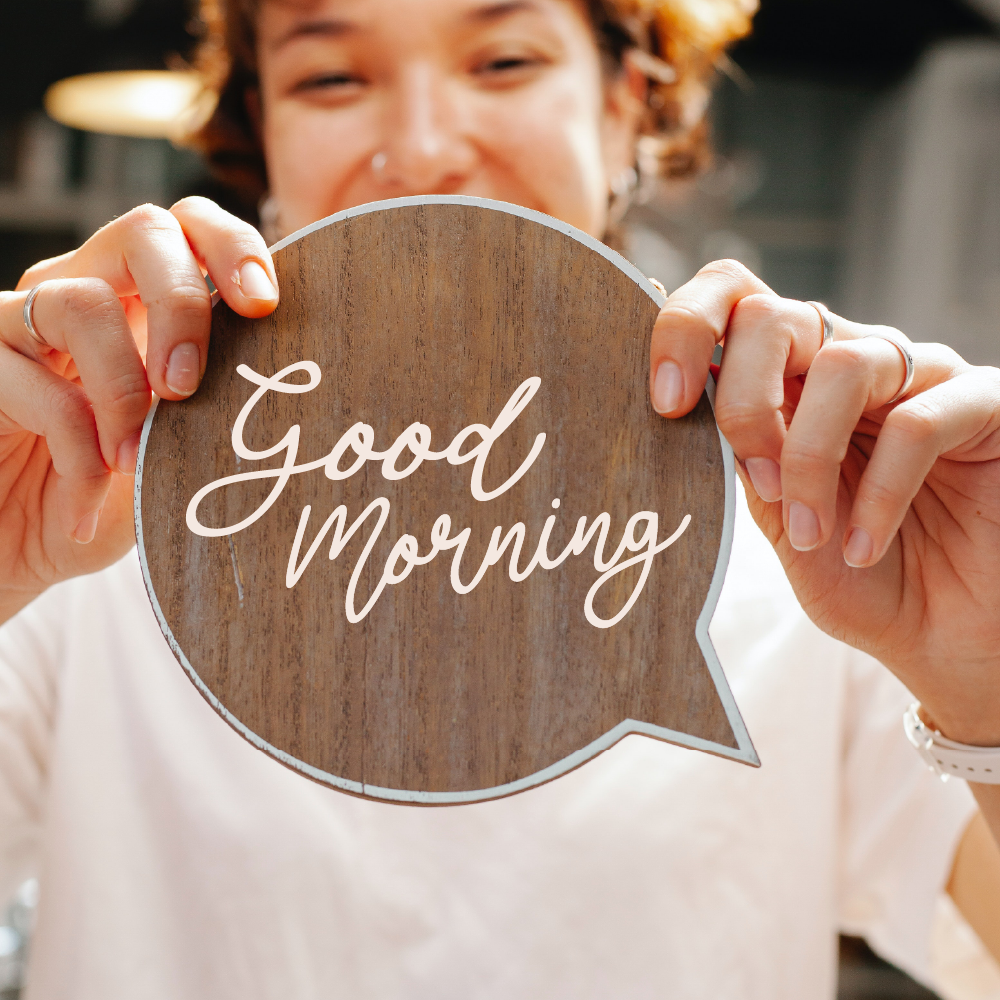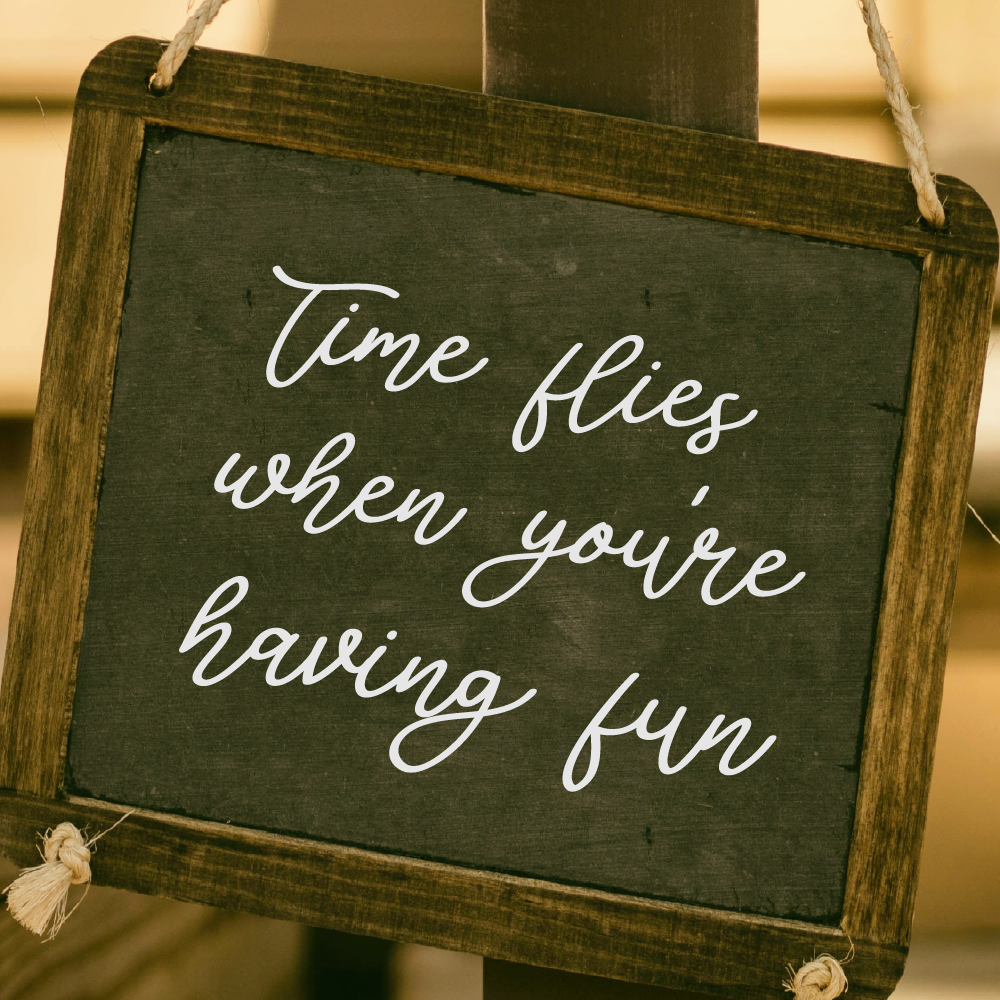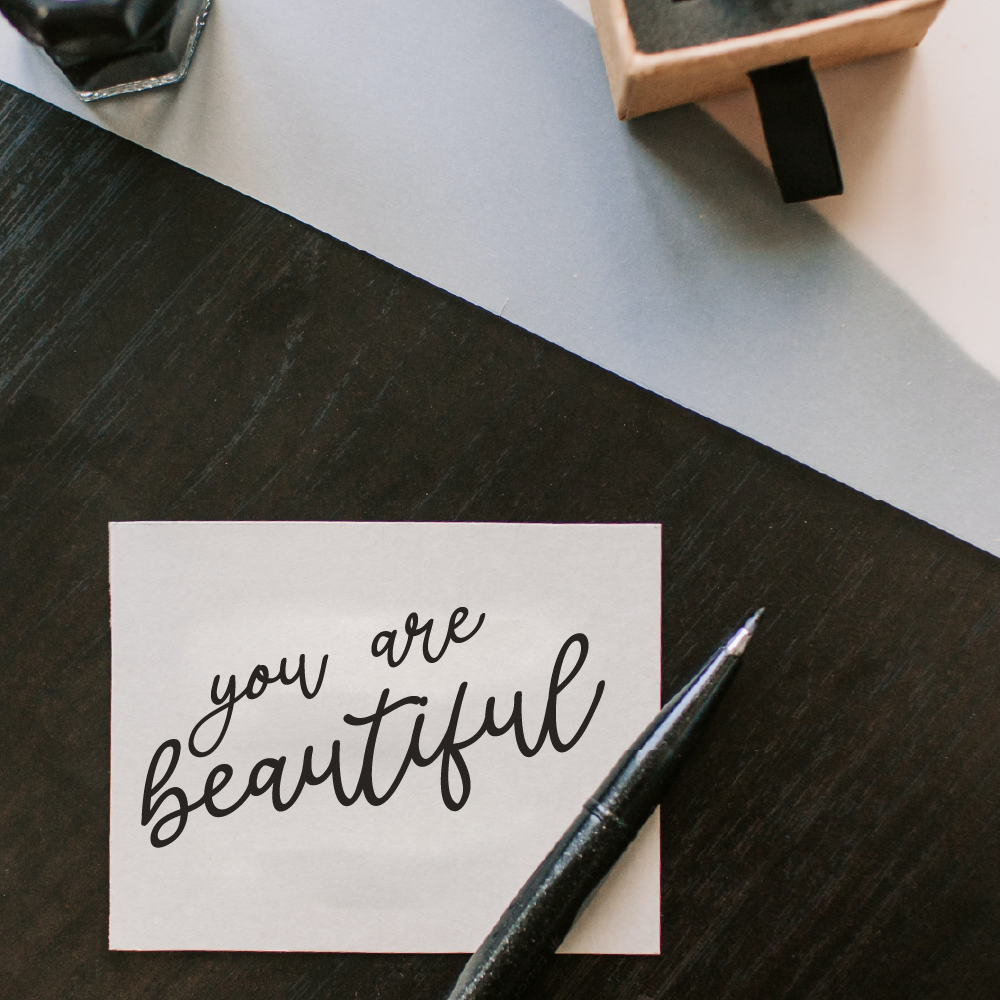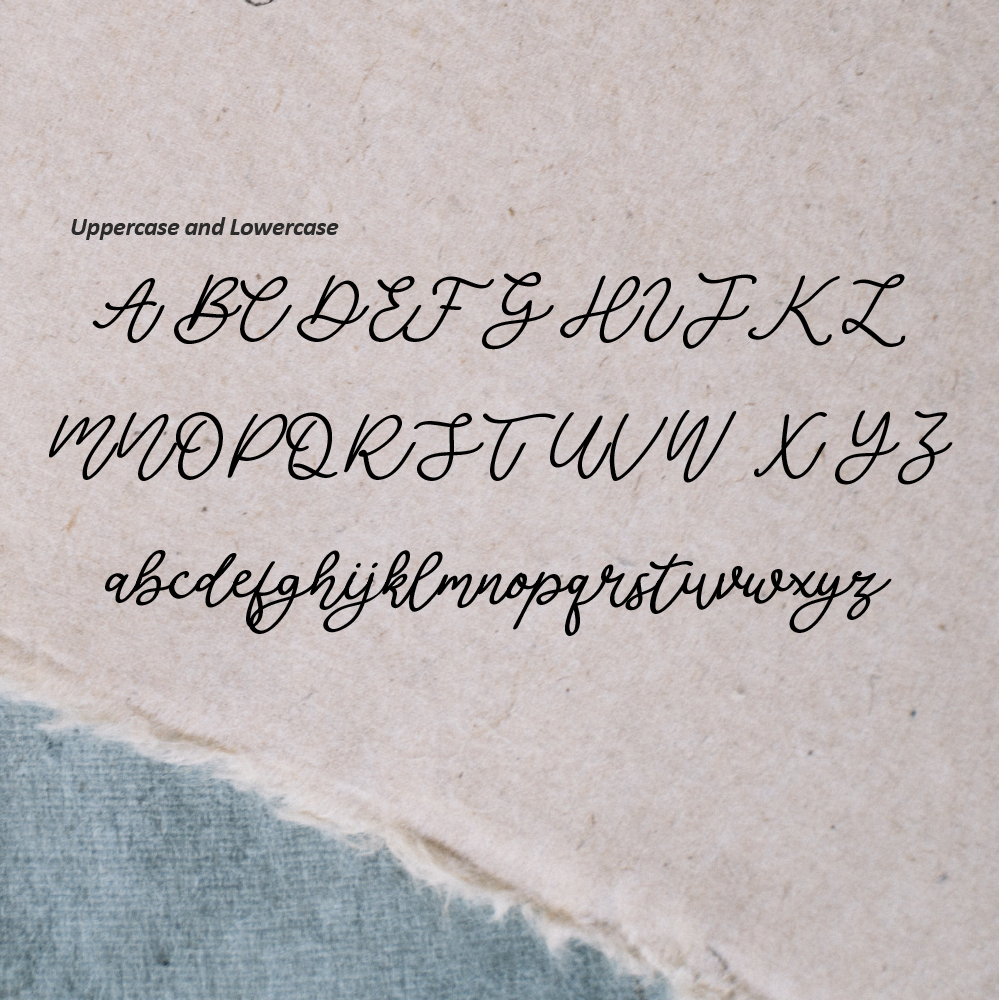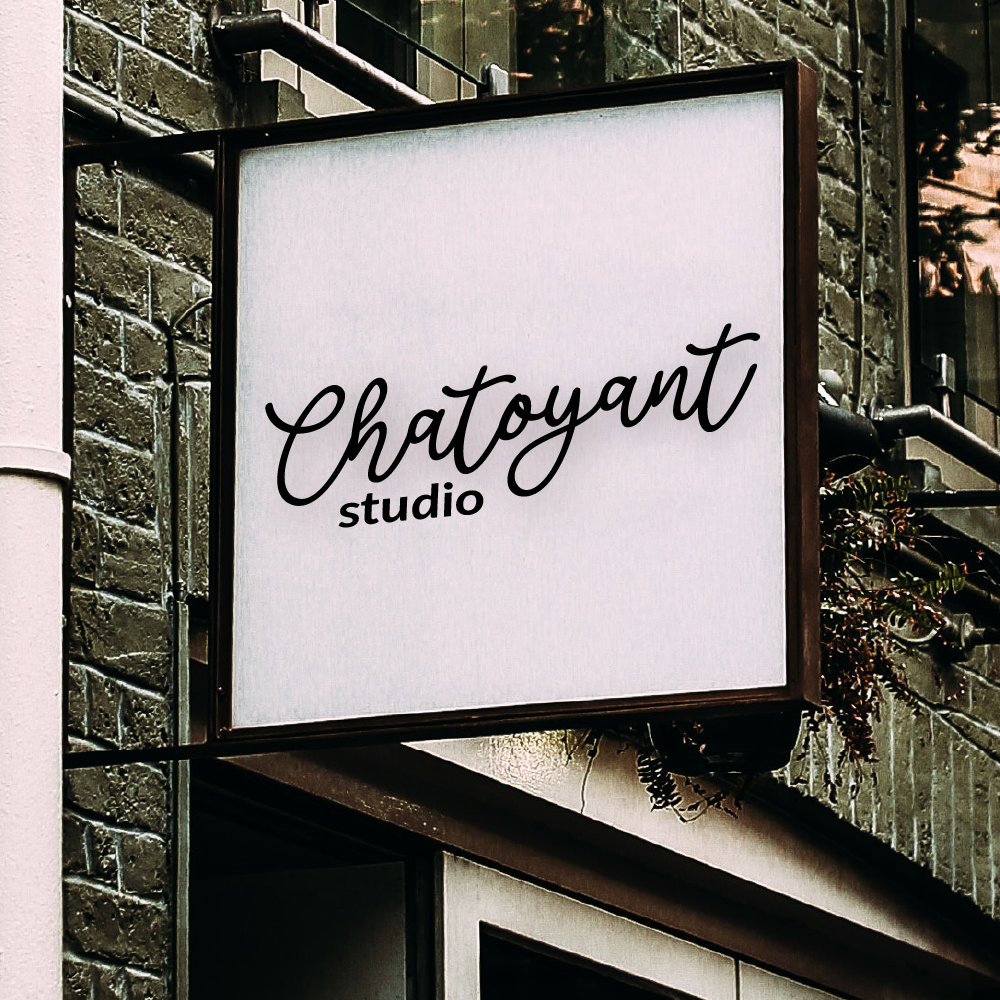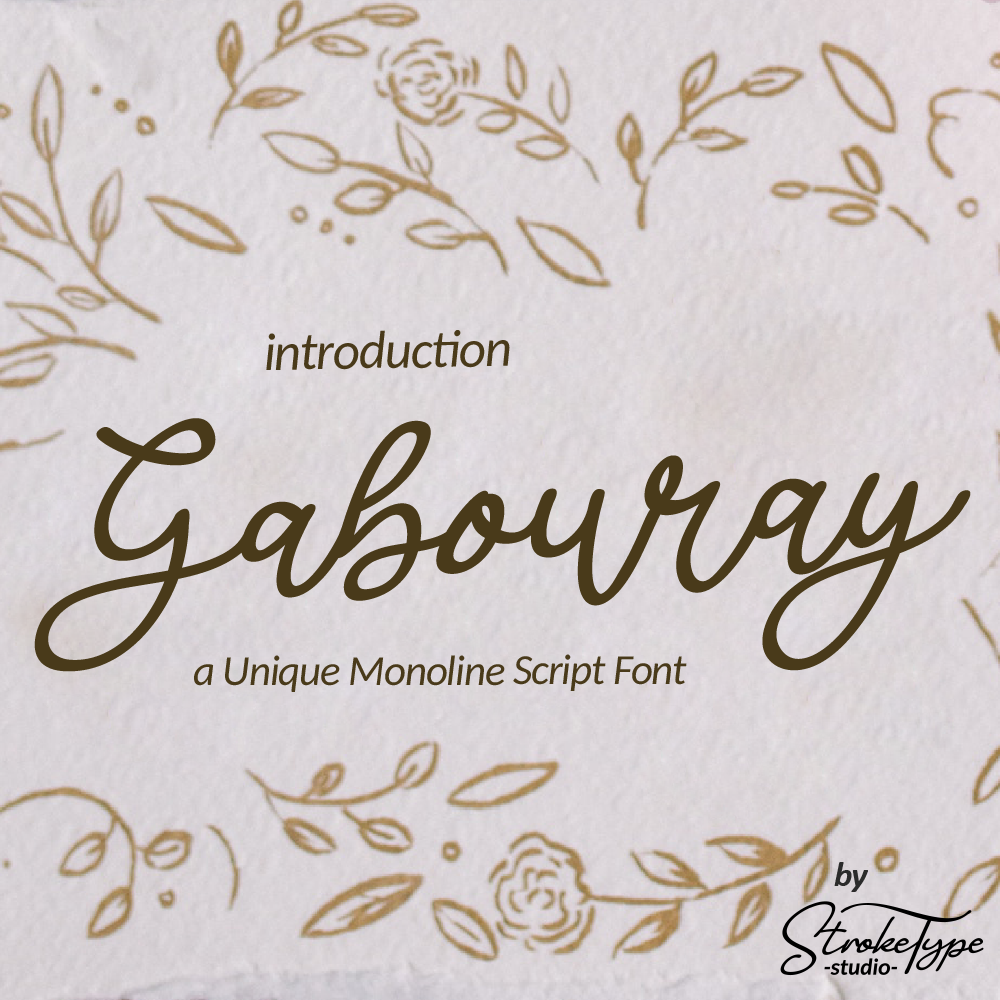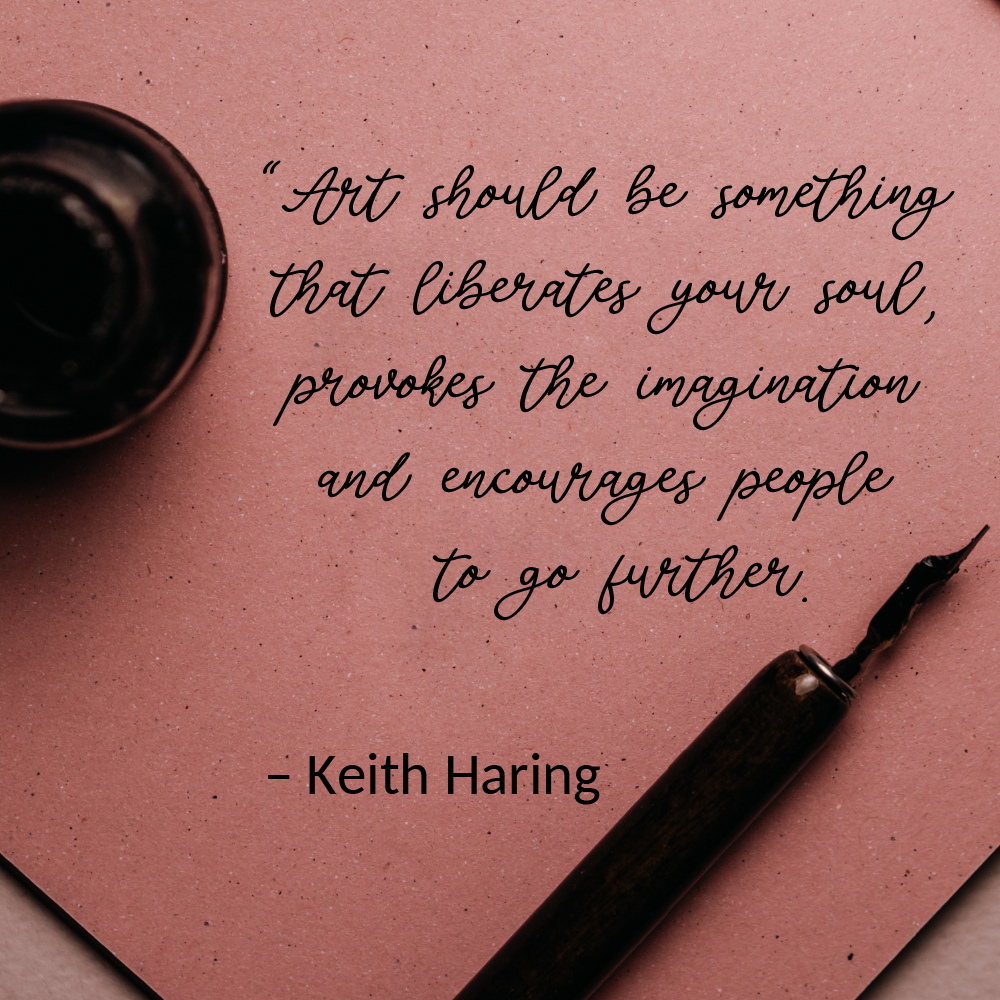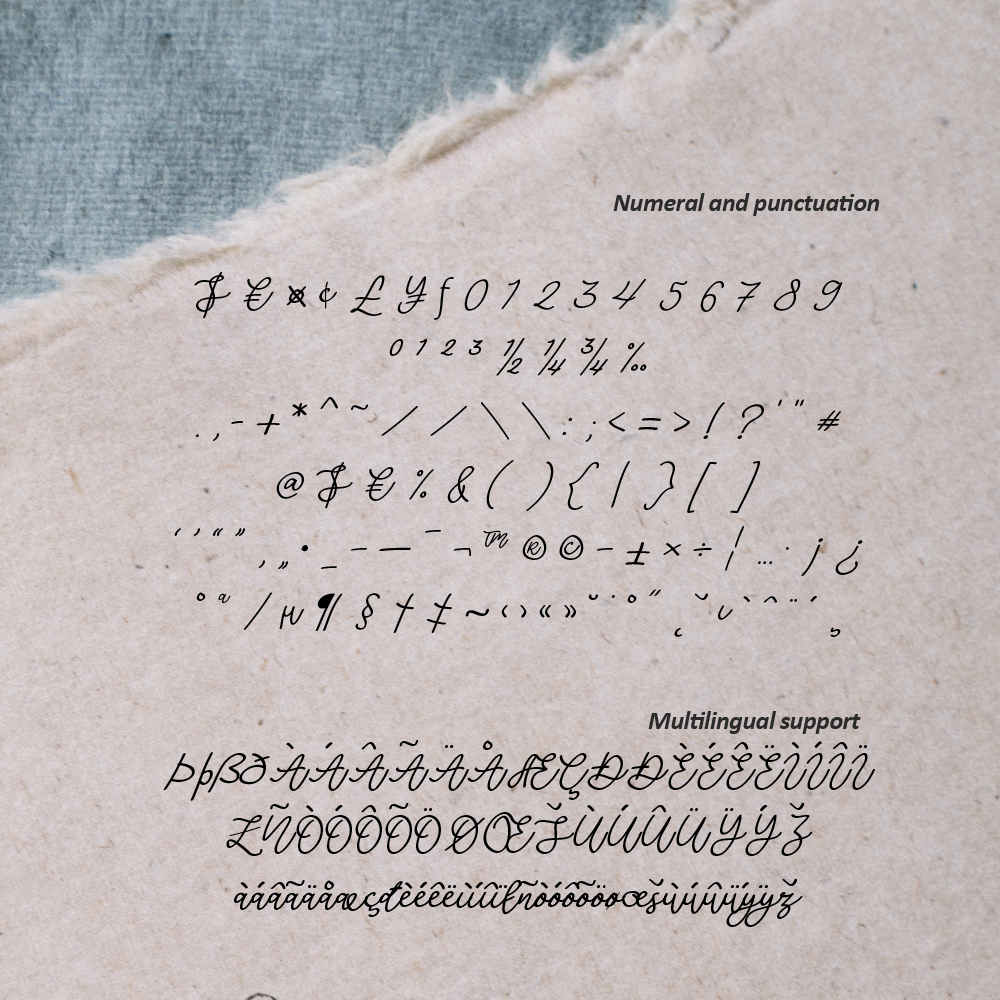
Gabouray Unique Monoline Script Font
Introducing the lovely Gabouray Script Font!
Gabouray is a Unique Monoline Script font, with a natural & stylish flow. Gabouray Font is perfect for many different project such as logos & branding, invitation, stationery, wedding designs, social media posts, advertisements, product packaging, product designs, label, photography, watermark, special events or anything.
- Uppercase and Lowercase letters
- Numbering and Punctuations
- Multilingual Support